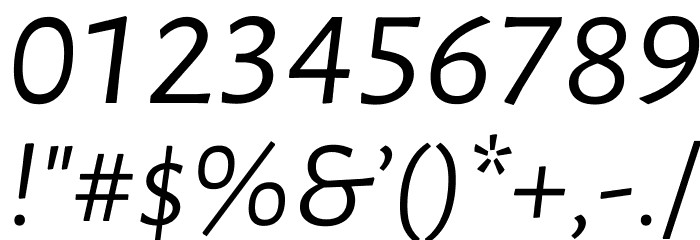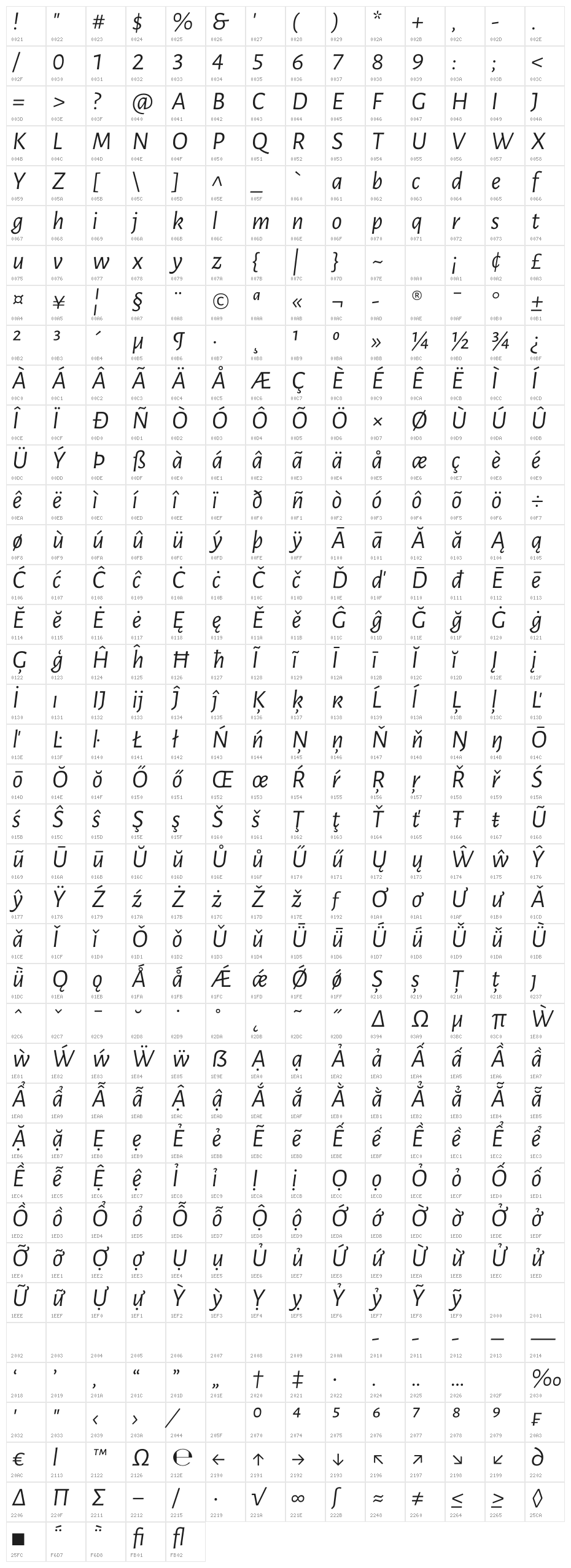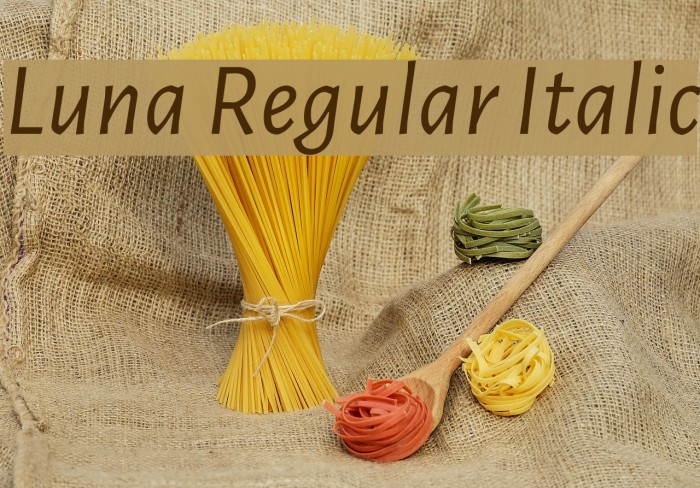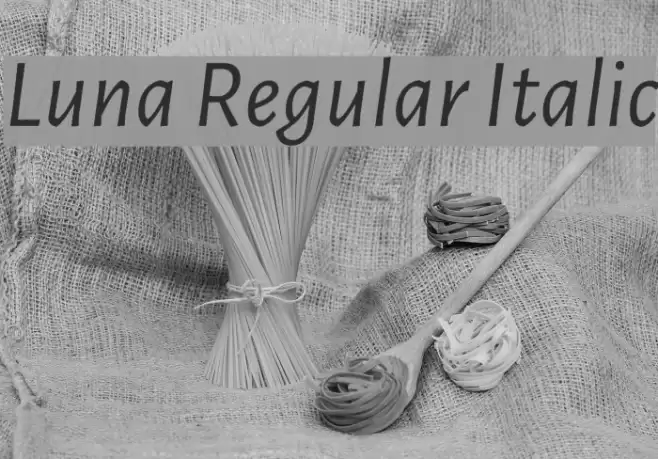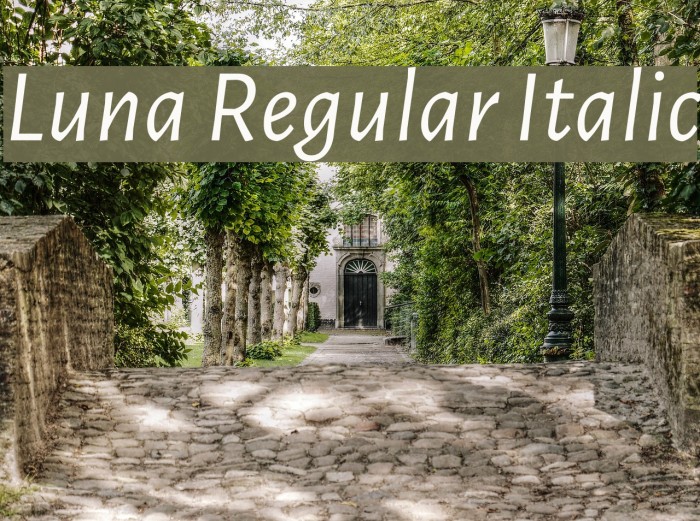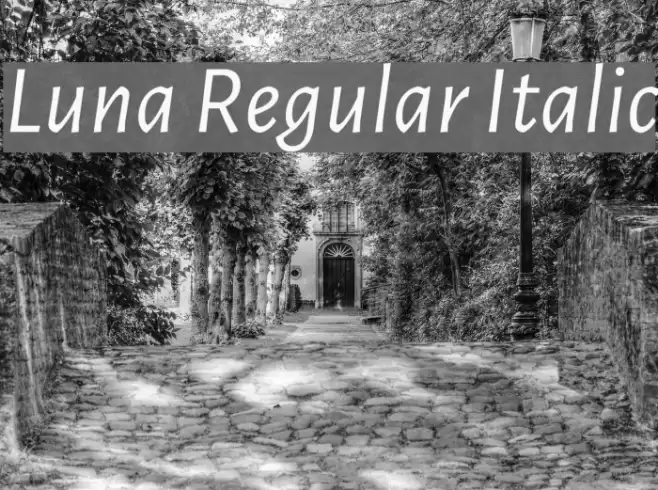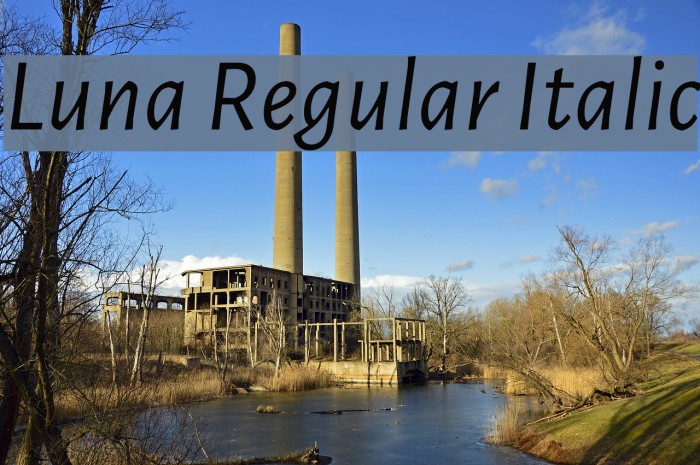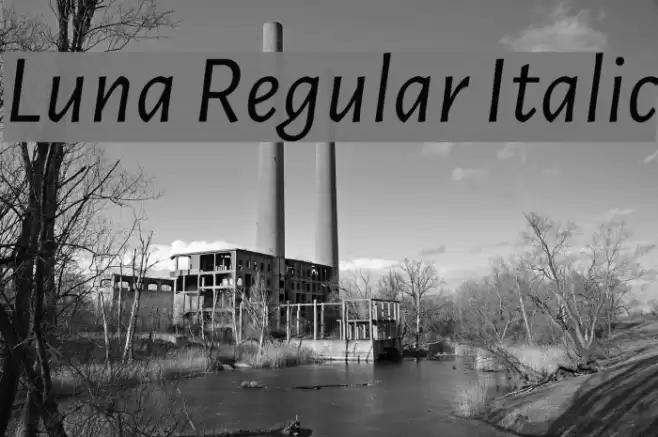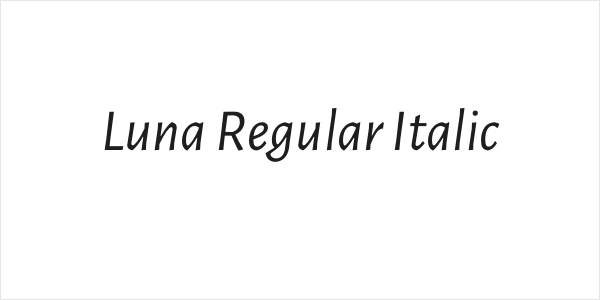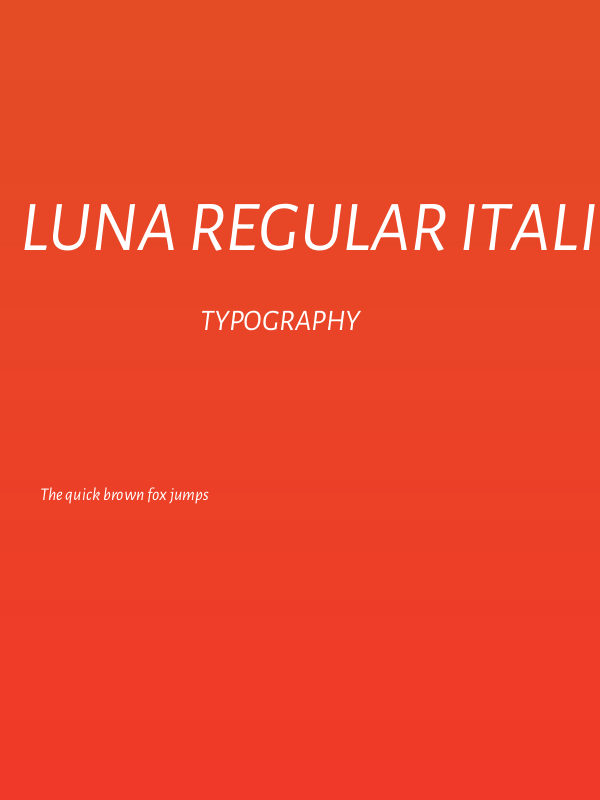
Luna Regular Italic Font
Luna Regular Italic Description
This font features a sleek, modern design with an italic style that adds a touch of elegance and fluidity to the text. The characters are slightly slanted, giving a dynamic and sophisticated appearance. The strokes are consistent in thickness, providing a uniform look across all characters. The uppercase letters are tall and commanding, while the lowercase letters maintain a smooth and flowing form. The numerals are clear and distinct, ensuring readability. Special characters are well-integrated, maintaining the overall aesthetic of the font.
Use CaseHeadlines, Body text, Logos
Proposed ProjectsIdeal for branding, editorial design, and stylish advertising campaigns.